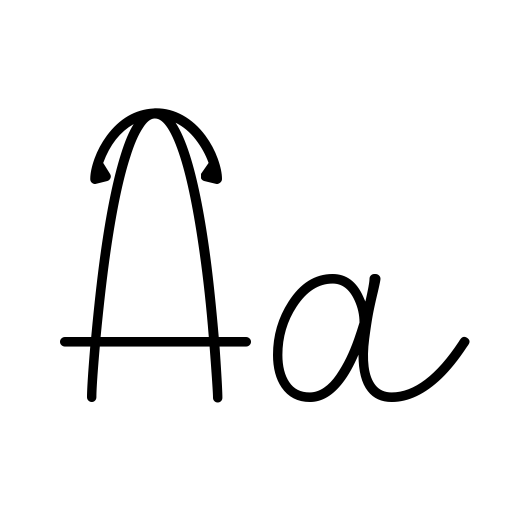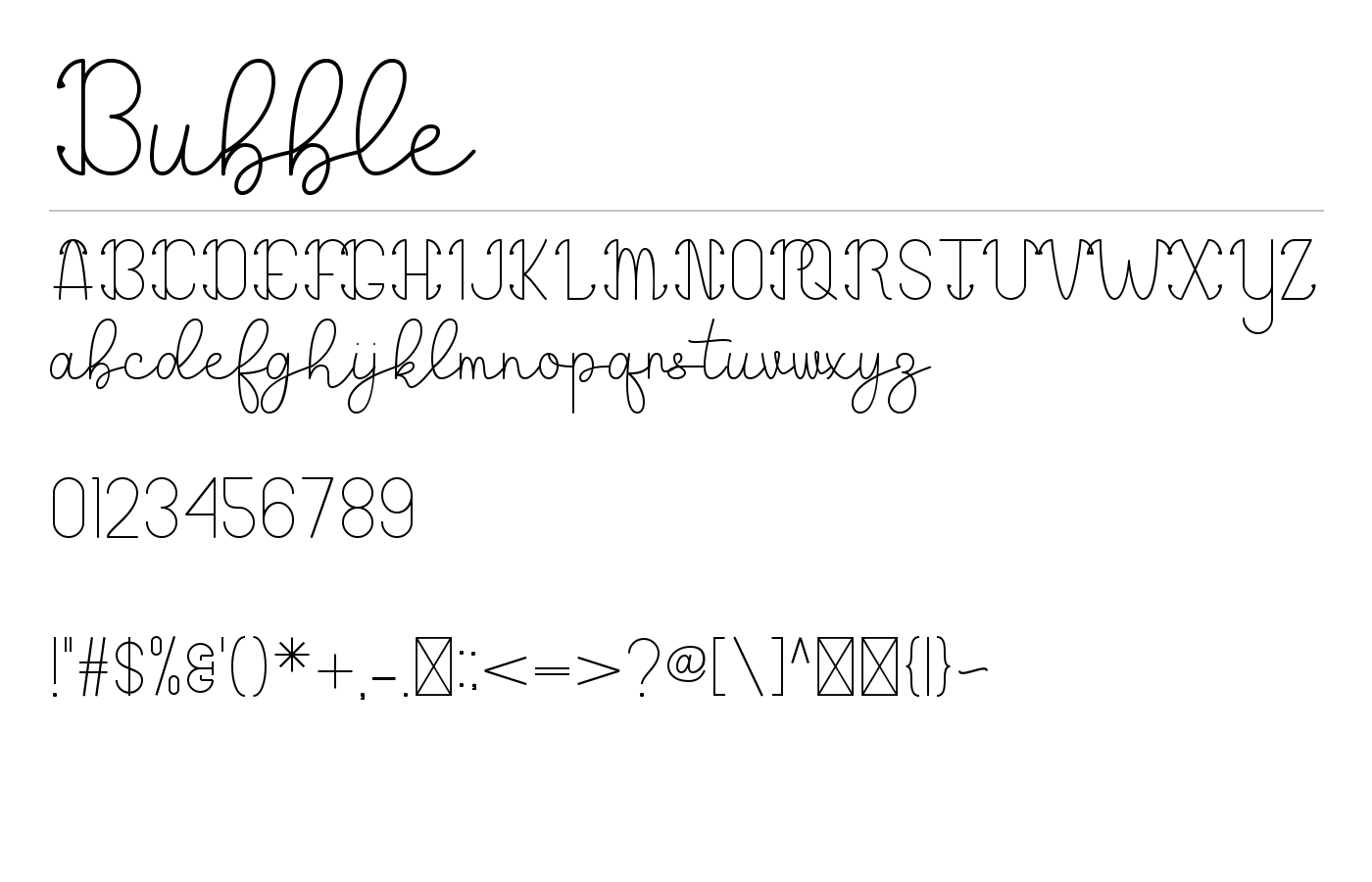
Bubble Font is a delicate, thin script-inspired typeface with a light and airy feel, featuring tall, narrow letterforms and elegant curls that create a playful yet sophisticated look. Its clean lines and whimsical strokes make it ideal for branding, invitations, and creative projects that seek a charming and youthful personality. This font works best in headlines or decorative text where its unique style can shine without sacrificing readability.
Bubble Font
About Bubble Font
| Font family | Bubble Font |
| Designer | Anjas Cov Cava Lera |